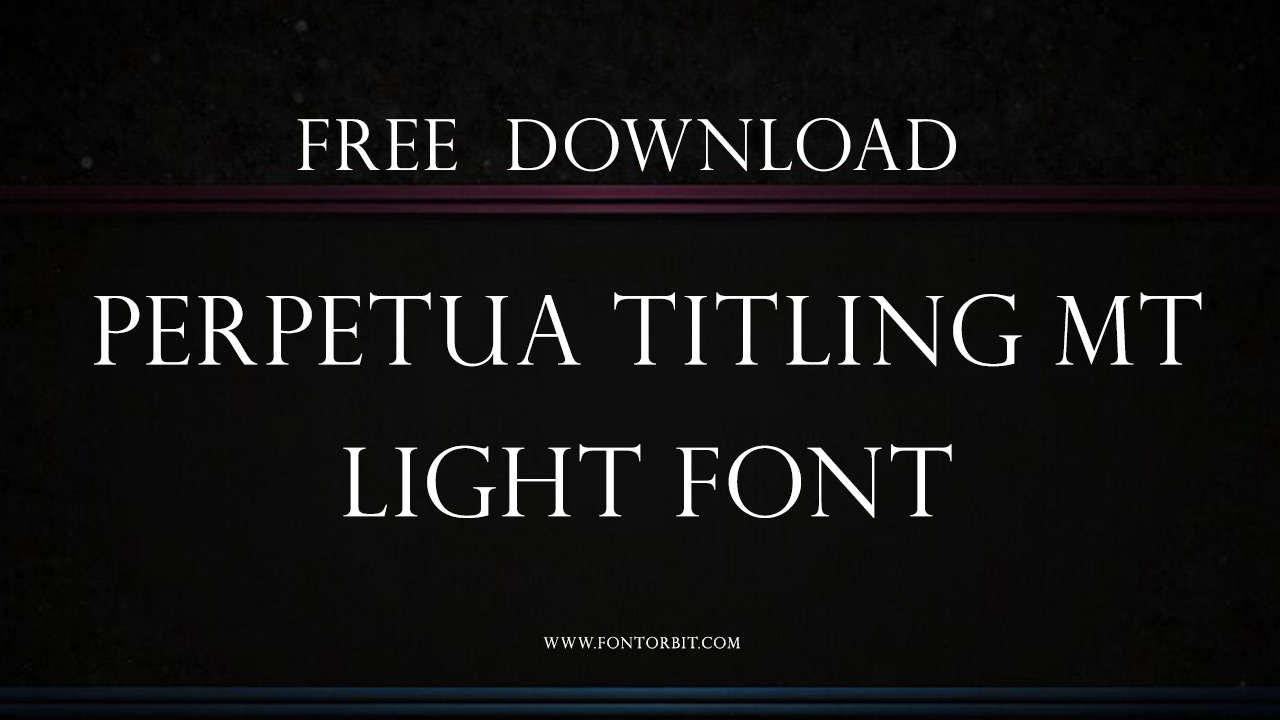
Eric Gill, a renowned typographer, designed Perpetua Titling MT Light in 1931, and Monotype published it. Belonging to the Perpetua font family, this typeface has demonstrated its versatility over the decades and gained widespread use, especially for headlines. Its hand-drawn, elegant letterforms and its timeless beauty make it a popular choice for print and digital design projects.
Perpetua Titling MT Light Font Family Includes
The Perpetua Titling MT font family has two primary styles, making it suitable for contrasting design purposes. Both styles are known for their distinct elegance and readability, often used at large point sizes for maximum effect.
Perpetua Titling MT Bold
Notable Uses Of Perpetua Titling MT Light
This font has been notably used in various forms of design work, including:
- Book titles and headings.
- Posters, advertisements, and signage.
- Digital media.
Perpetua Titling MT Light is best suited for projects that need a classic and formal appearance. Its hand-drawn quality adds a touch of elegance to headlines and titles. You can use this font for:
- Invitations and formal event materials
- Websites or logos that require a vintage or classic feel
- Posters and large-format typography where readability and spacing are key
Perpetua Titling MT Light is a versatile and timeless font that continues to be appreciated for its elegance and historical significance. Whether you’re designing for print or digital, this typeface adds sophistication and charm to any project.
4.What Makes Perpetua Titling MT Light Unique?
Its hand-drawn quality and historical background give it a distinctive look.